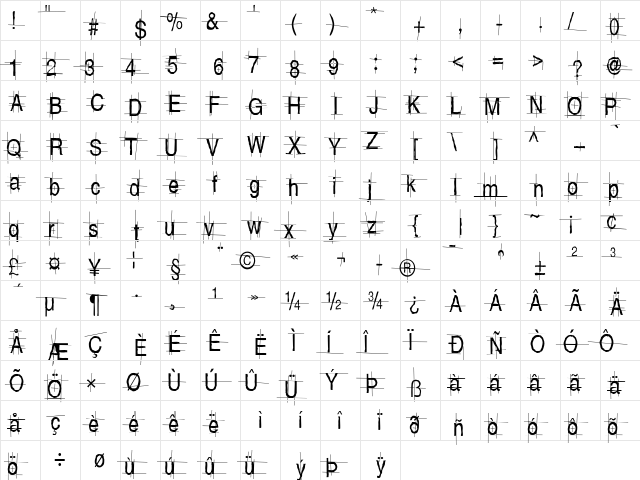
PenalCode Medium
| Foundry | Designed by Elliott Peter Earls, The Apollo Program |
Design Context for PenalCode Typeface
PenalCode uses fixed-width spacing throughout, giving it the structured, systematic character associated with coding environments and technical documentation.
Pro Tip: Use PenalCode with slightly increased line-height for extended reading — fixed-width spacing can feel dense in longer passages without extra breathing room.